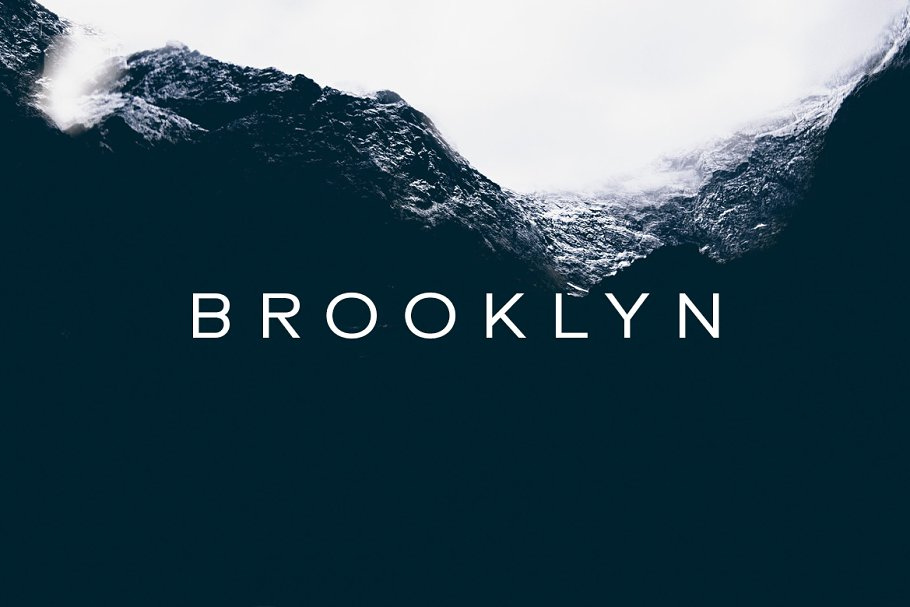
Brooklyn Font
Brooklyn Font is perfect for urban lifestyle brands, contemporary city magazines, modern restaurant branding, trendy coffee shop signage, street art galleries, and metropolitan fashion campaigns. Its dynamic character makes it ideal for creative agencies, urban real estate companies, indie music venues, artisanal food markets, hipster barbershops, and any project requiring authentic urban energy with Brooklyn's distinctive creative spirit and metropolitan sophistication.
This font is exciting because it captures the raw creativity and diverse cultural energy of Brooklyn's vibrant neighborhoods while delivering contemporary functionality for modern urban communications. The boldly crafted letterforms embody the borough's artistic renaissance and entrepreneurial spirit, creating powerful connections that resonate with audiences seeking authentic urban experiences, creative expression, and the dynamic pulse of modern city life.
The Brooklyn Font family typically includes Light, Regular, Medium, and Bold weights with urban alternates, street-inspired ligatures, and metropolitan decorative elements that enhance its city personality. This comprehensive collection provides designers with versatile tools for creating authentic brand systems that maintain urban credibility while offering creative flexibility for various metropolitan applications and contemporary market positioning strategies.